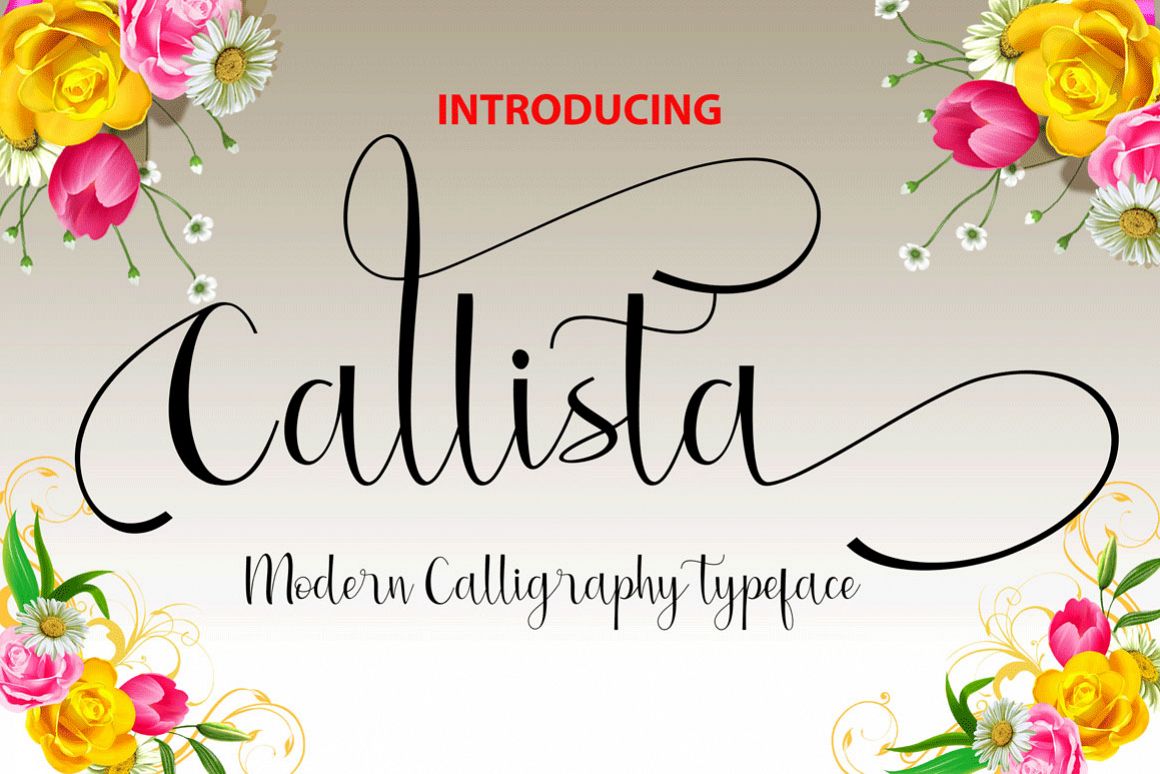
Callista
Callista scripts is a hand calligraphy, smooth, modern and classic, calligraphy wavy, which was created to meet the needs of your next design project. Callista, Can used for various purposes. such as the title, signature, logo, correspondence, wedding invitations, letterhead, signage, labels, newsletters, posters, badges, etc.
Callista features 365 glyph and has given PUA Unicode (specially coded fonts), can be accessed easily with the character map, can be accessed in full by the lovers of letters or artisans to increase career in the design world.
The Features of this fonts is: Standart ligatures, Stylistic Sets and swashes.